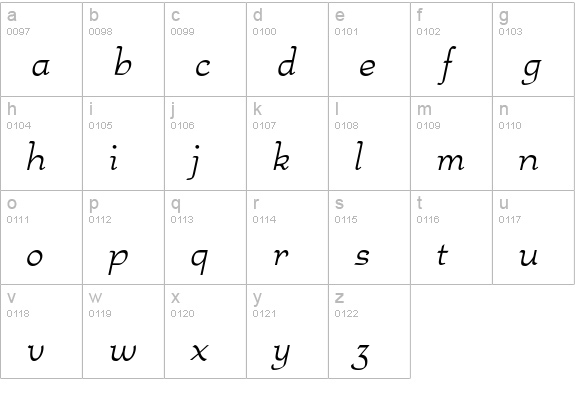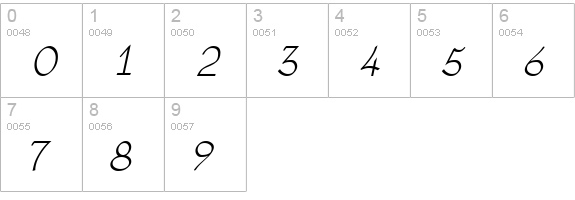
Anarckhie Italic is a distinctive, italic variant in the Anarckhie typeface family \xE2\x80\x94 well suited to design and typography projects.
Introducing Anarckhie Italic font, a striking typeface that exudes elegance and modernity. With its sleek and stylish design, Anarckhie Italic is perfect for adding a touch of sophistication to any project. The unique curves and sharp angles of this font give it a distinctive look that is sure to capture attention. Anarckhie Italic font is not only visually appealing but also versatile, making it suitable for a wide range of design applications. Whether you're creating logos, posters, invitations, or any other design project, this font is sure to make a statement. Best of all, Anarckhie Italic font is free to download at FontsMarket.com. So why wait? Elevate your designs with this stunning typeface today!